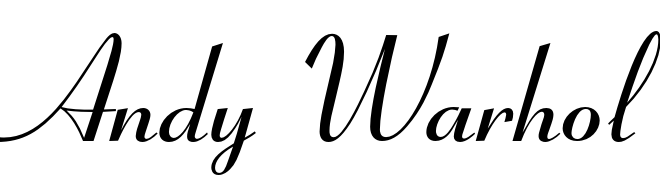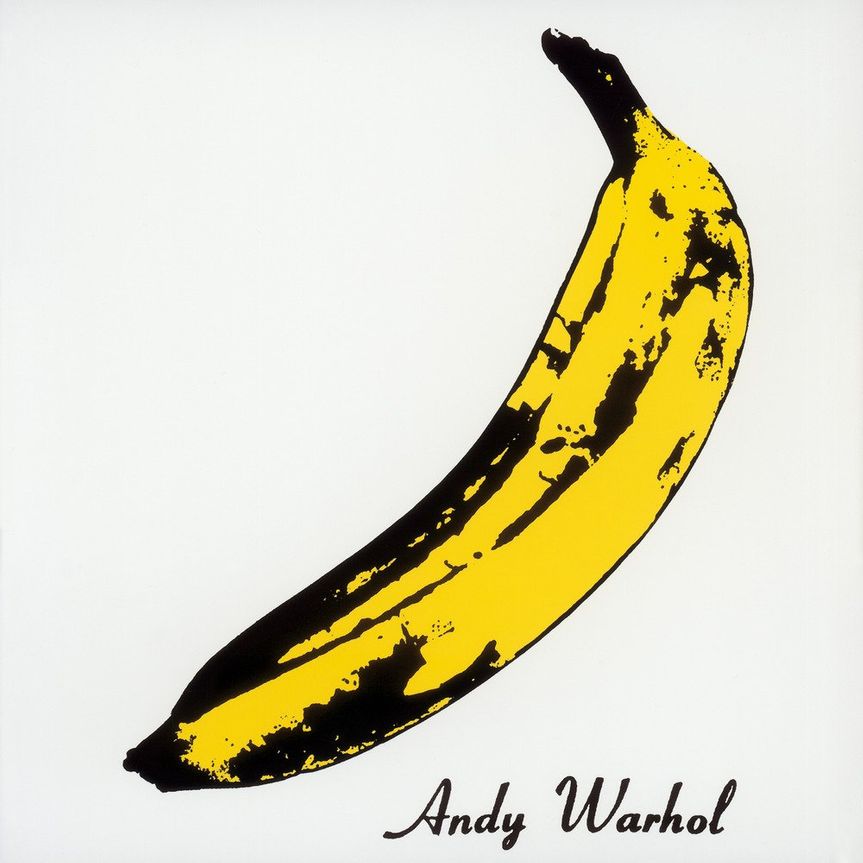
The Velvet Underground & Nico Font
Fonts in UseThe Velvet Underground & Nico album was released by The Velvet Underground, an American rock band formed in New York City in 1964.
The iconic front cover of the album showcases a yellow banana with Andy Warhol's signature and is set in Robert Middleton's Coronet Bold font in the bottom right corner. The back cover features the album title in a rounded, blocky typeface that resembles Morris Fuller Benton's Othello font.